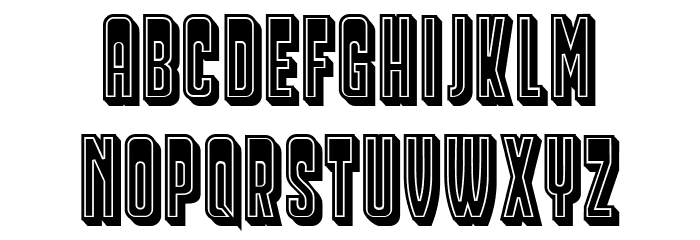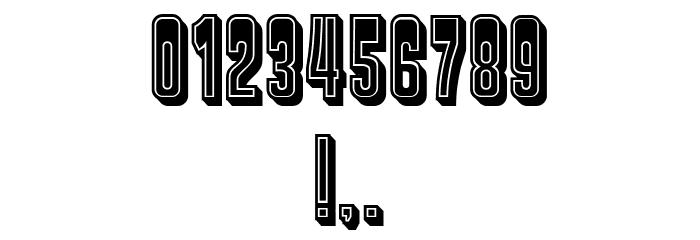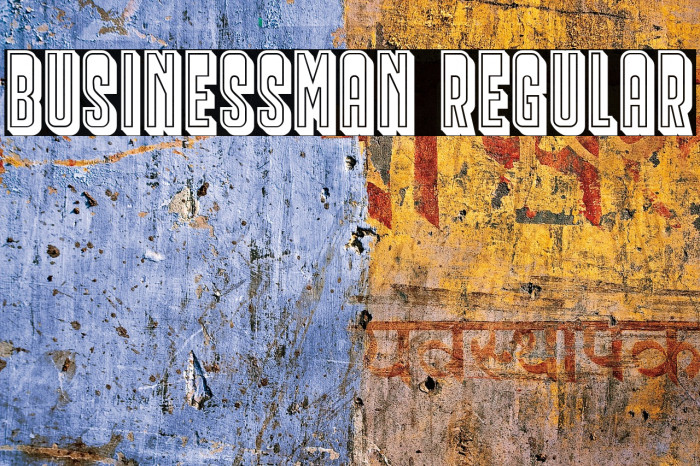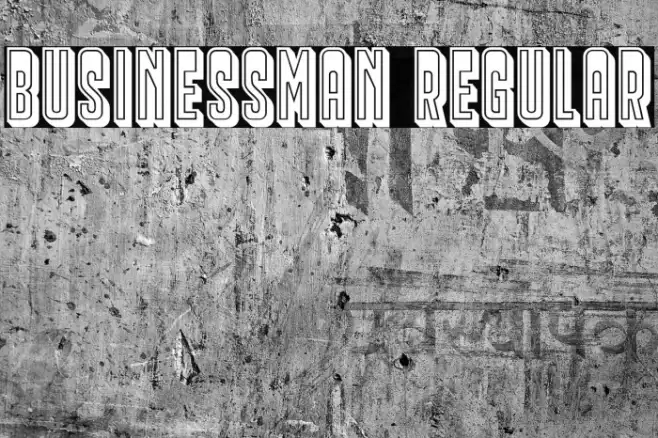
Businessman Regular Font
This font features a bold, geometric design with a strong emphasis on vertical and horizontal lines, creating a sense of structure and stability. The characters are outlined with a thick border, adding depth and a three-dimensional effect. The uppercase letters are uniform in height, while the numbers and special characters maintain the same bold style, ensuring consistency across all glyphs. The font's design is reminiscent of classic architectural styles, making it suitable for projects that require a sense of authority and professionalism. Its bold presence makes it ideal for headlines and titles where impact is essential.
A bold, geometric font with a three-dimensional outline, ideal for impactful headlines.
- Proposed Projects: This font is perfect for branding projects, posters, and signage where a strong, authoritative presence is needed. It can also be used in editorial design for magazine covers or feature articles.